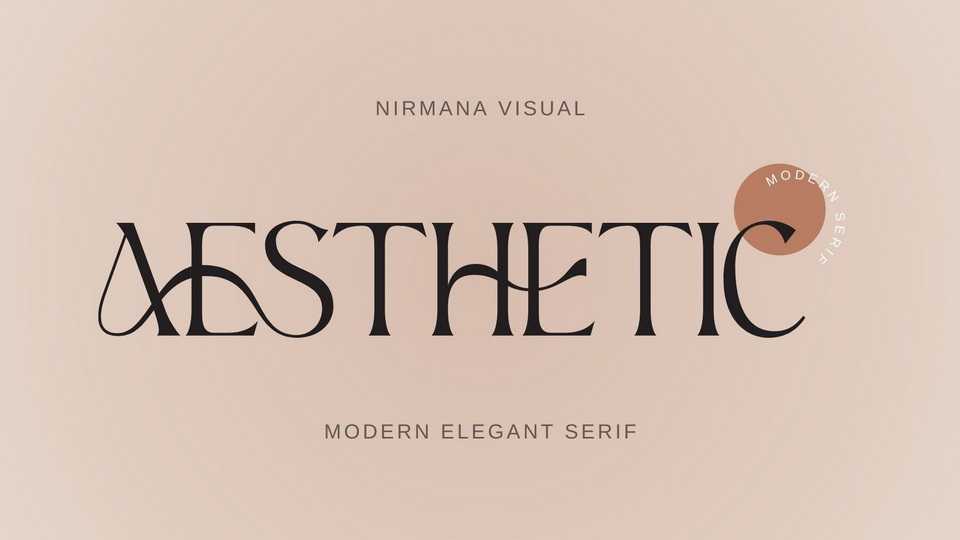
Download Aesthetic font, a modern serif typeface that is both memorable and stylish. Aesthetic font is perfect for fashion-related branding or editorial design and displays both masculine and feminine qualities.